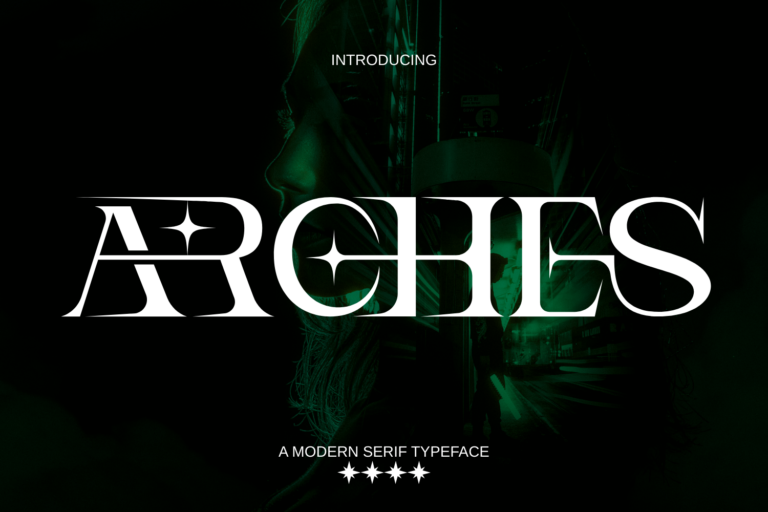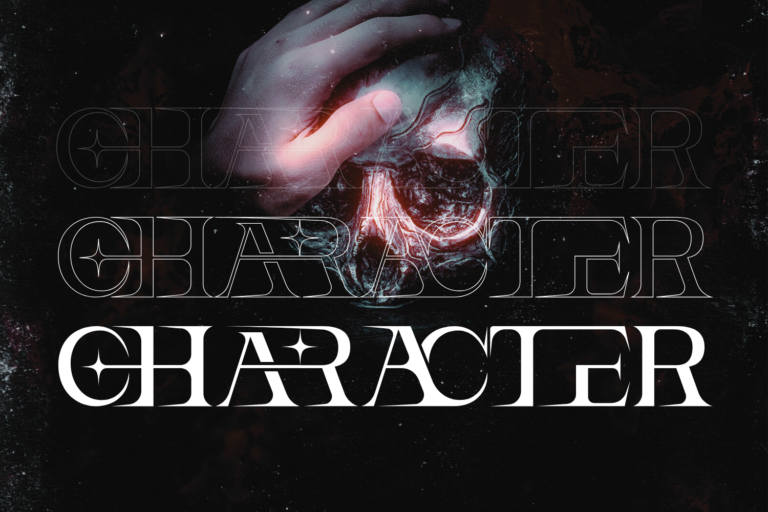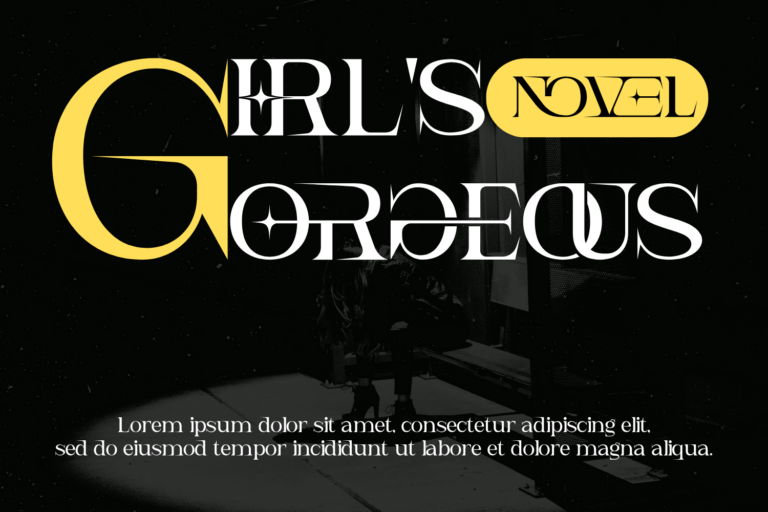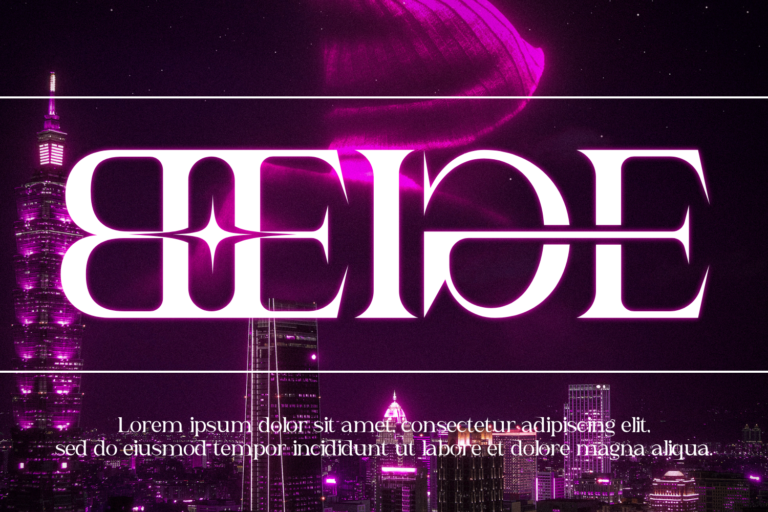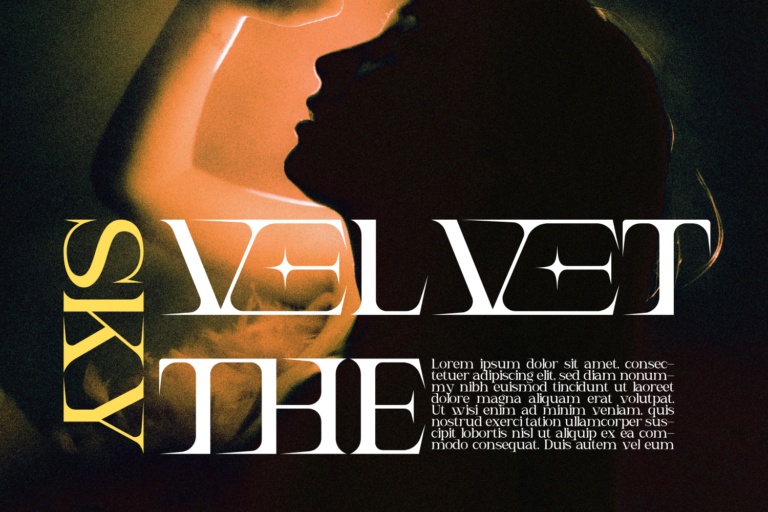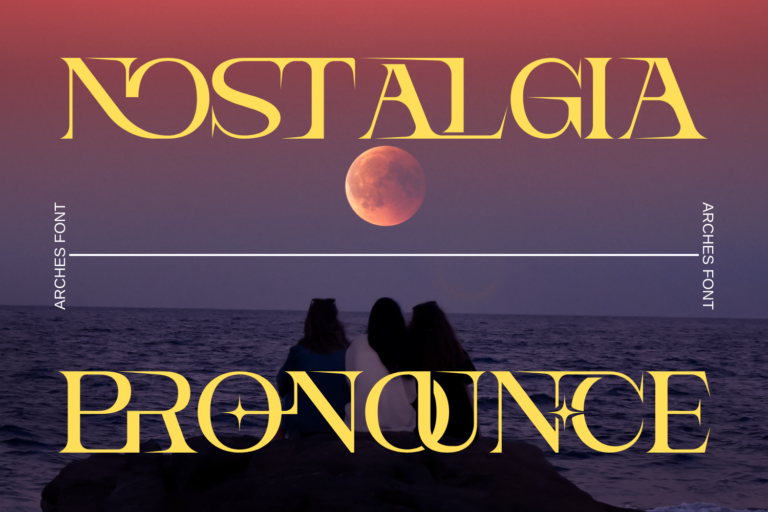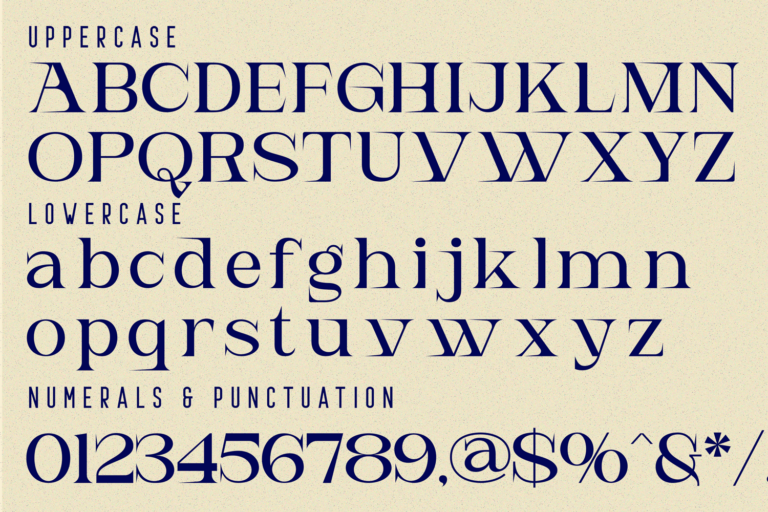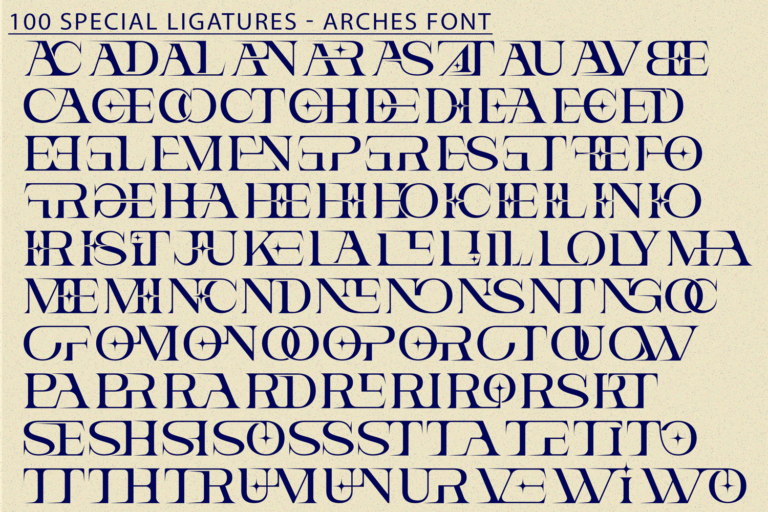
ARCHES – Futuristic Font – Bold Futuristic Serif Display Font, a striking modern serif display font that bridges classic elegance with a futuristic edge. Designed with high contrast strokes and geometric precision, this typeface features star-cut counters and stylized terminals that make every word feel editorial and iconic. Perfect for high-fashion branding, magazine headlines, album covers, and cinematic titles, ARCHES delivers visual impact and sophistication in equal measure.
Font Features:
• Uppercase and Lowercase Letters
• ~100 Special Ligatures
• Numerals and Punctuation
• Multilingual Accents
• Unique Star Cut & Stylized Alternates
AC AD AL AN AR AS AT AU AV BE CA CE CH CO CT DE DI EA EC ED EE EL EM EN EP ER ES ET FE FO FR GE HA HE HI HO IE IC IL IN IO IR IS IT JU KE LA LE LI LL LO LY MA ME MI NC ND NE NG NO NT NS OC OF OM ON OO OP OR OT OU OW PA PR RA RD RE RI RO RS RT SE SH SI SO SS ST TA TE TH TI TO TR TT UM UN UR VE WI WO